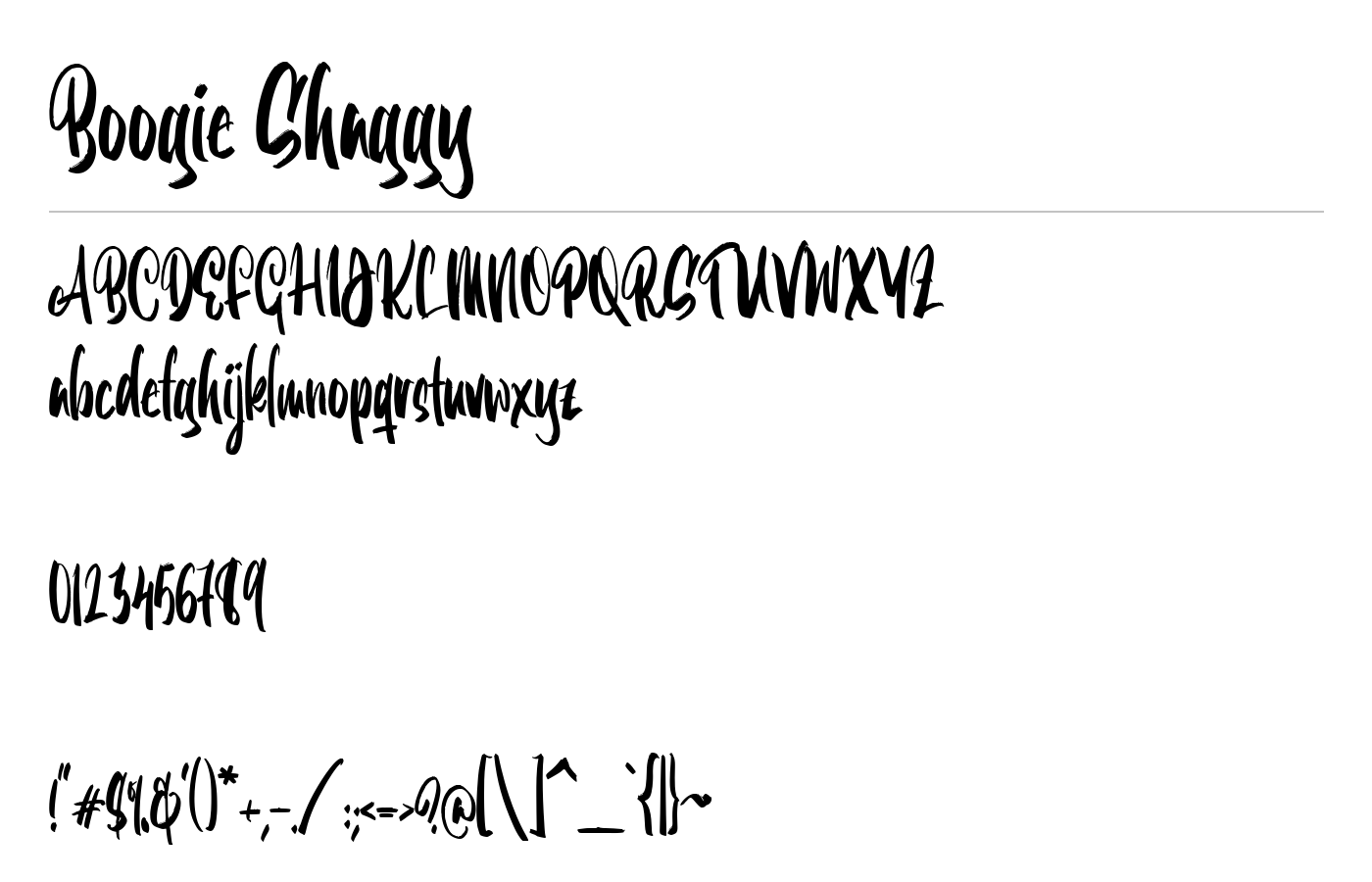
Boogie Shaggy is a lively handwritten script font with a bold, textured style that conveys a playful and energetic vibe. Its tall, narrow letterforms feature varied stroke thicknesses and whimsical curves, making it perfect for creative projects that need a casual and artistic touch. This font works great for eye-catching headlines, logos, and branding that aim to express personality and fun.
Boogie Shaggy Font
About Boogie Shaggy Font